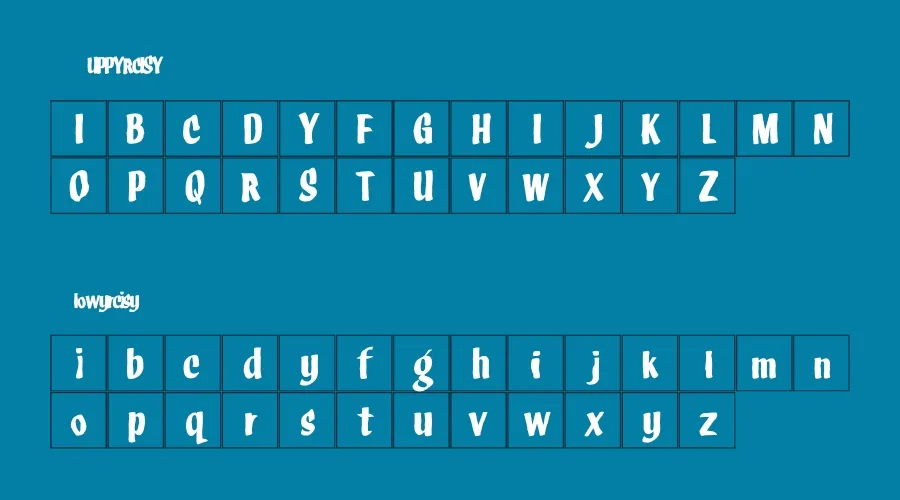
LHF Anna Banana Font
About LHF Anna Banana Font
This outstanding texture has been totally remarked on and re-kerned from blemish. It includes different types of characters such as digits, symbols, small letters, capital letters, punctuation, and many other unique structures of elements. You may utilize it for copy-and-paste functions.
The LHF Anna Banna typeface is the perfect choice for increasing the enhancement of your designs, it will be an amazing look in your all fun methods and signs.
Name LHF Anna Banana Font
Designer Dave Correll
Style Cartoon
• LHF Anna Banana Regular
• LHF Anna Banana Bold
What font is LHF Anna Banana Font?
The LHF Anna Banana typeface was invented by a famous typographic designer name Dave Correll and the subfamily of this texture is Regular.
How old is LHF Anna Banana Font?
It is a contemporary style. This font style is very relaxed, which means that you may use it in many further ways. It performs well for both birthday cards and Christmas designs.